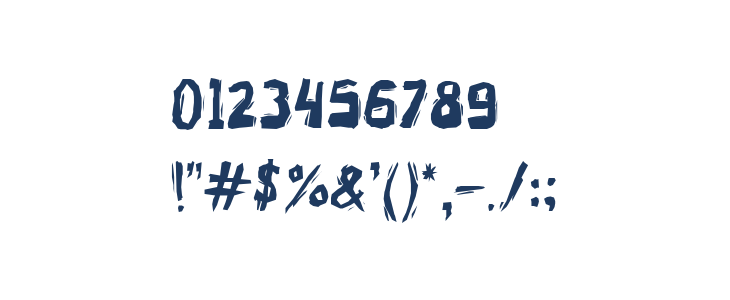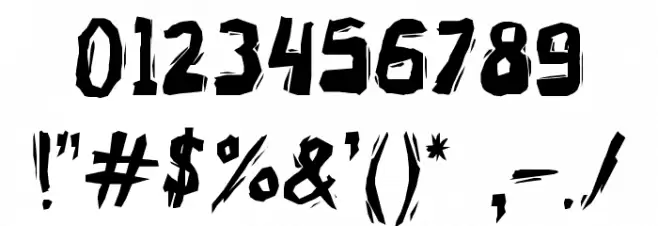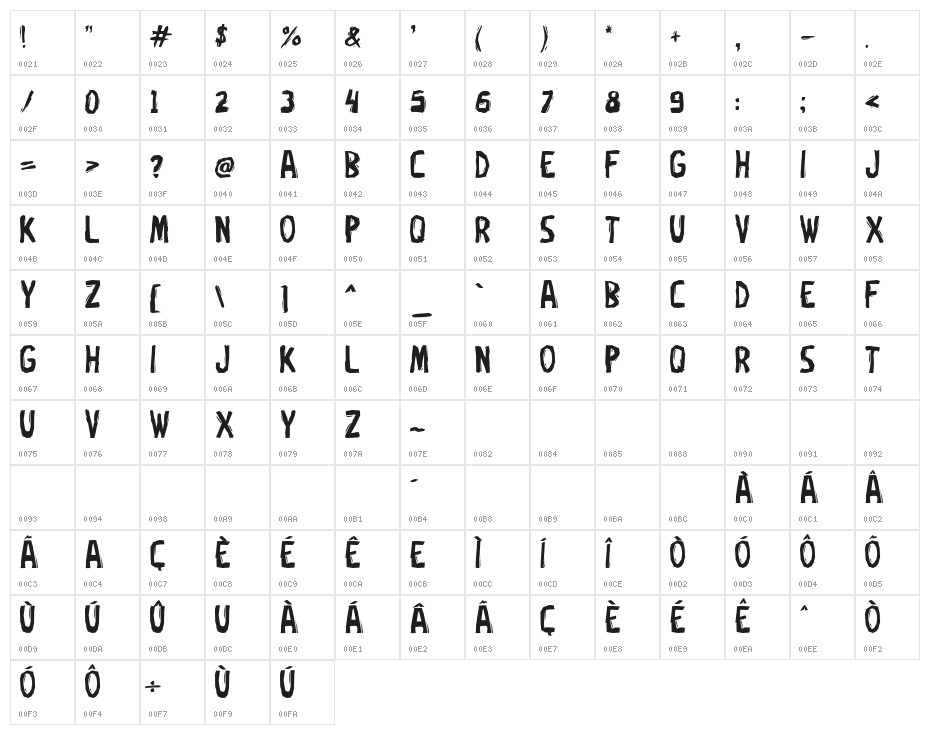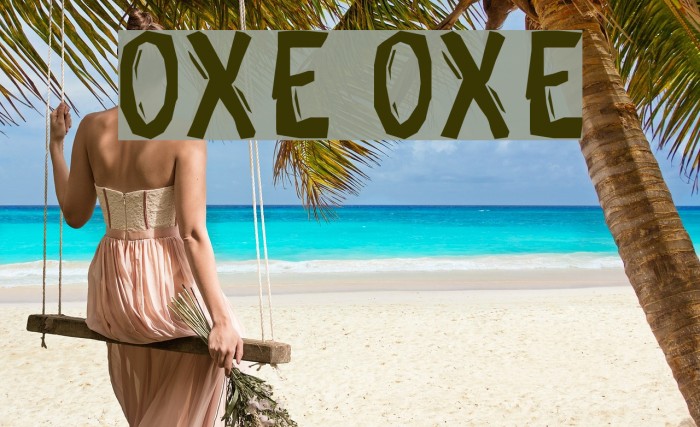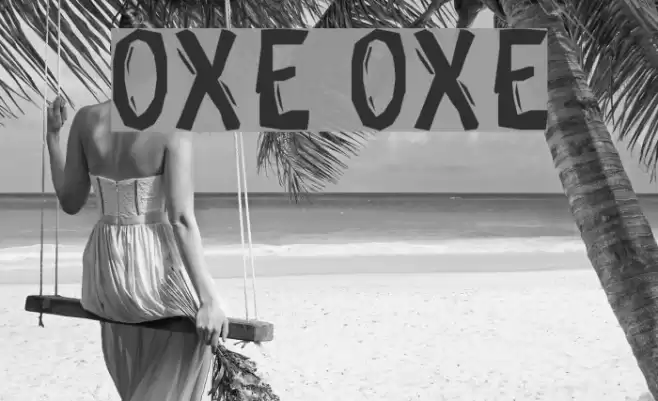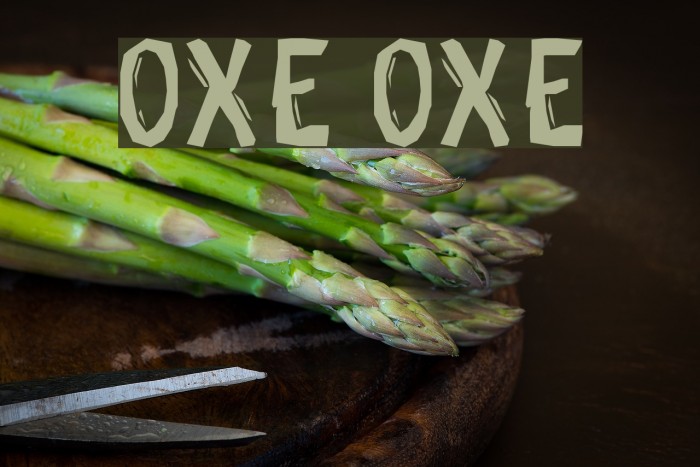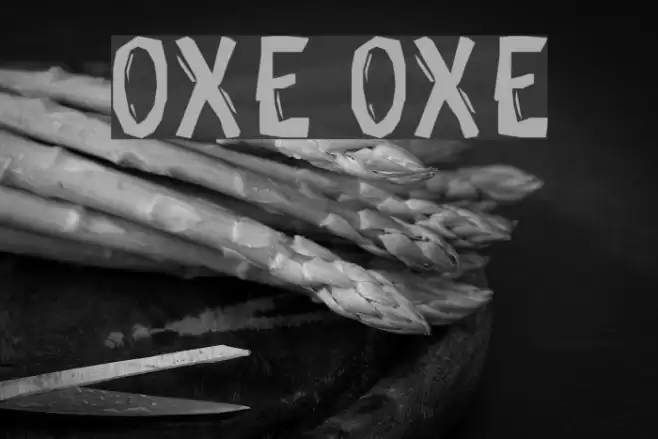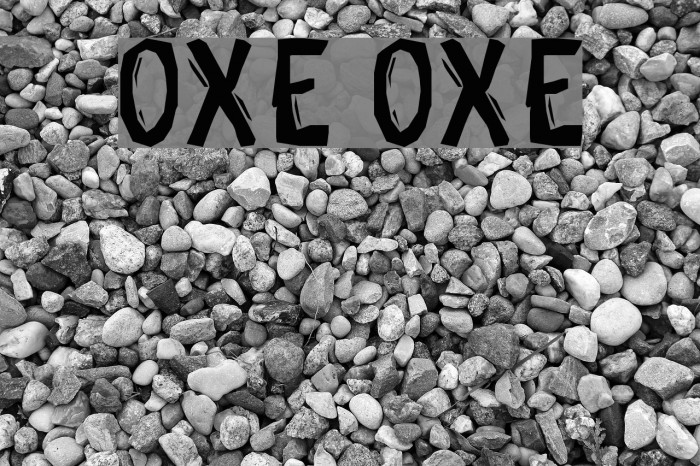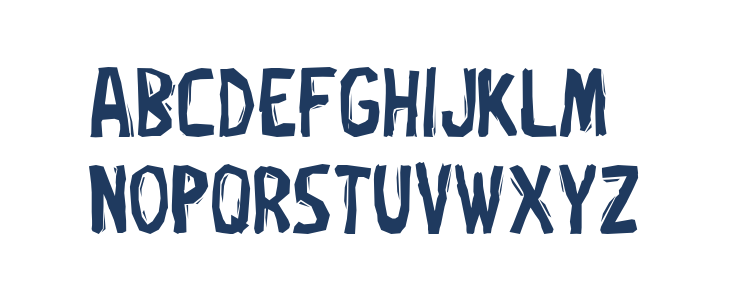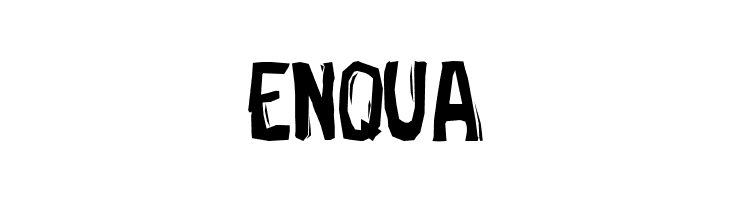
OXE OXE Font
OXE OXE Description
This font features a bold, jagged style with a hand-drawn appearance, giving it a raw and edgy look. The characters are irregular and uneven, with sharp angles and a distressed texture that adds a sense of dynamism and energy. The uppercase and lowercase letters maintain a consistent style, while the numerals and special characters complement the overall aesthetic. This font is ideal for projects that require a strong, impactful visual statement, such as posters, album covers, or branding for edgy or alternative brands.
| Proposed Projects | Ideal for posters, album covers, edgy branding, and alternative designs. |